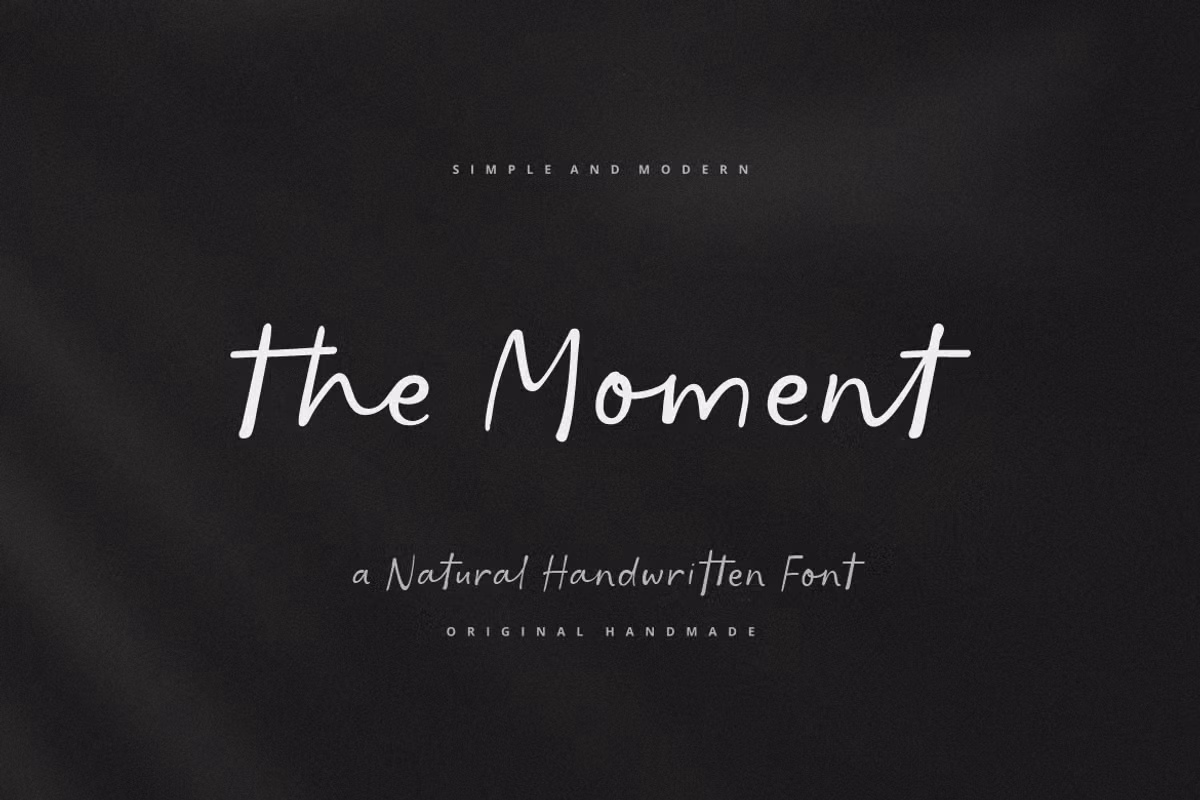
The Moment | Modern Handwriting Font Free Download
The Moment | Modern Handwriting Font Free Download is a fresh and elegant script typeface that mimics the fluidity and charm of handwritten letters. Perfect for invitations, branding, social media posts, and other creative projects, this font brings a personal and sophisticated touch to your designs.
With its smooth curves and contemporary flair, The Moment is ideal for designs requiring a stylish, yet casual feel. It includes uppercase and lowercase letters, numbers, punctuation, and multilingual support, making it versatile for various design applications.